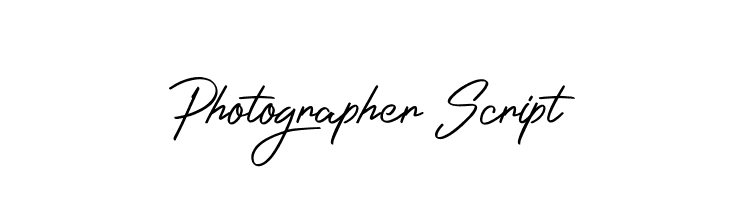
A graceful and fluid script font with a modern, handwritten style.
A modern handwritten font with fluid, elegant strokes and a personal touch.
A graceful, cursive font with a handwritten style.
An elegant, flowing script font with a modern calligraphic style.
A lively, flowing script font with smooth, connected strokes.
A playful and elegant script font with flowing, cursive letterforms.
A cursive, handwritten font with a smooth and flowing style.